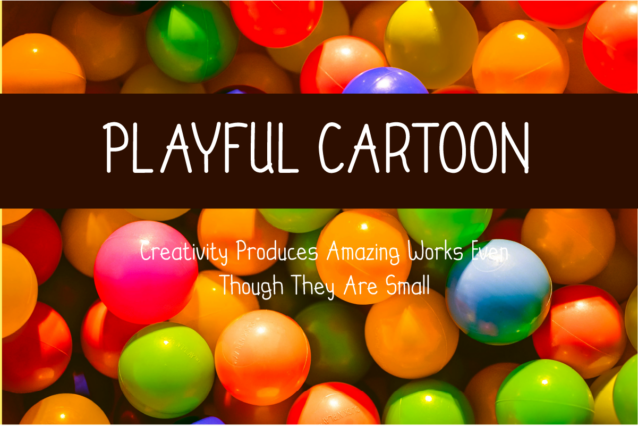
Playful Cartoon Display Font is a relaxed themed font that is suitable for holidays and the like
Playful Cartoon is a unique font, which is all capital letters, with lowercase letters I made a cute version.